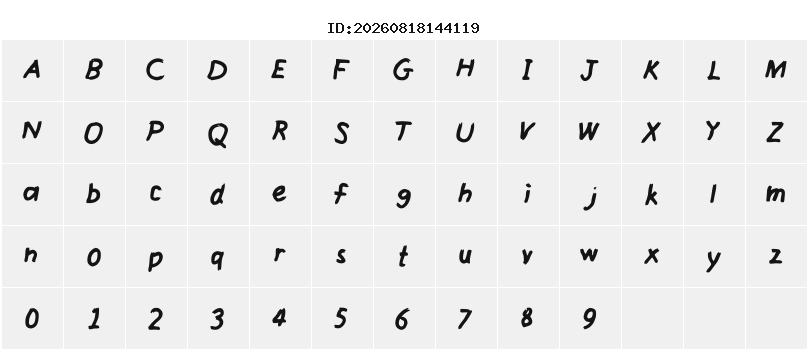
SloppyDragon_VL Preview
• Font Name: SloppyDragon_VL
• Full Font Name: SloppyDragon_VL
About SloppyDragon_VL.ttf
SloppyDragon_VL.ttf is a modern, elegant sans-serif font designed for ultimate readability and visual harmony. Perfect for branding, headlines, web design, and print materials.